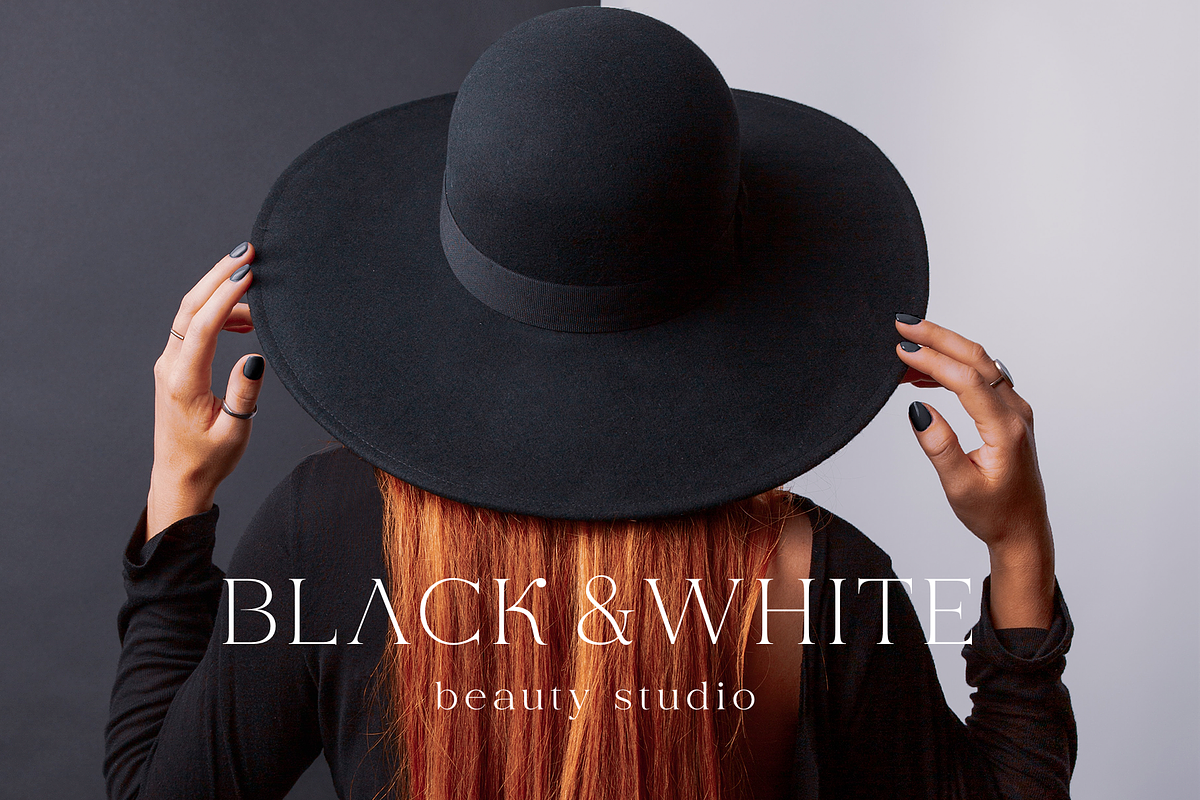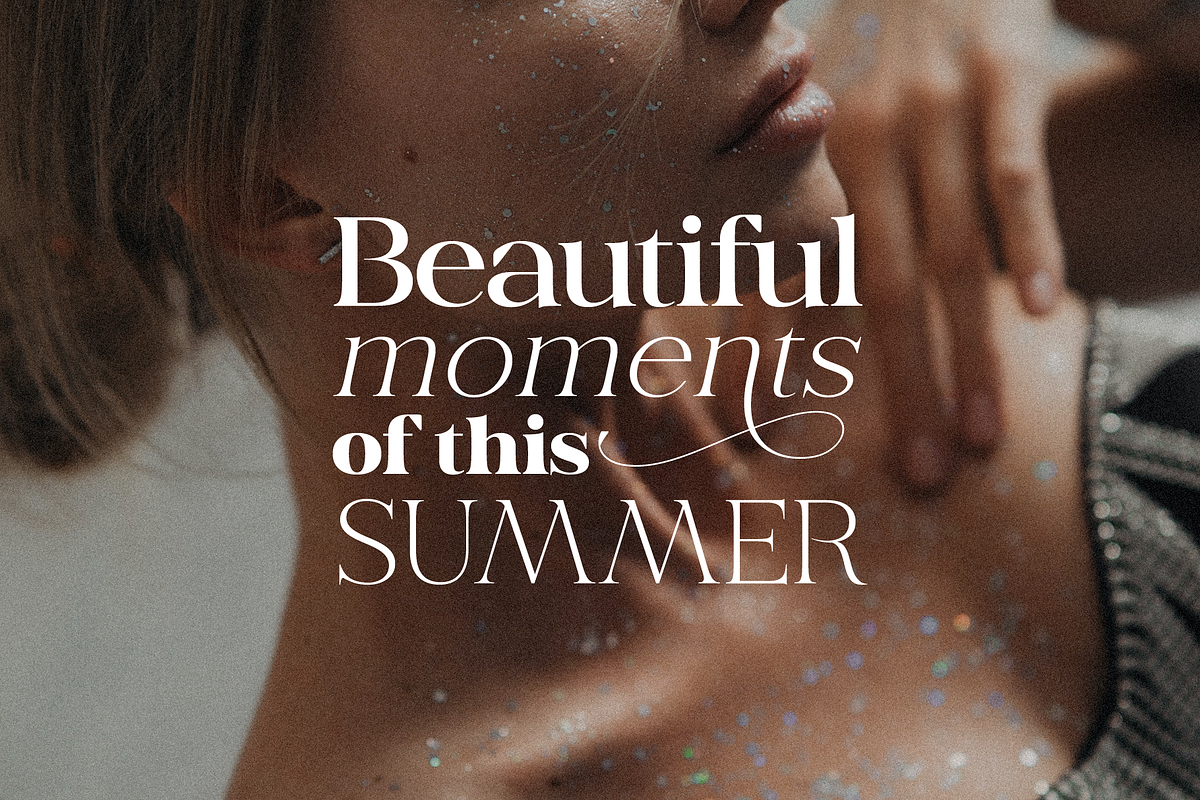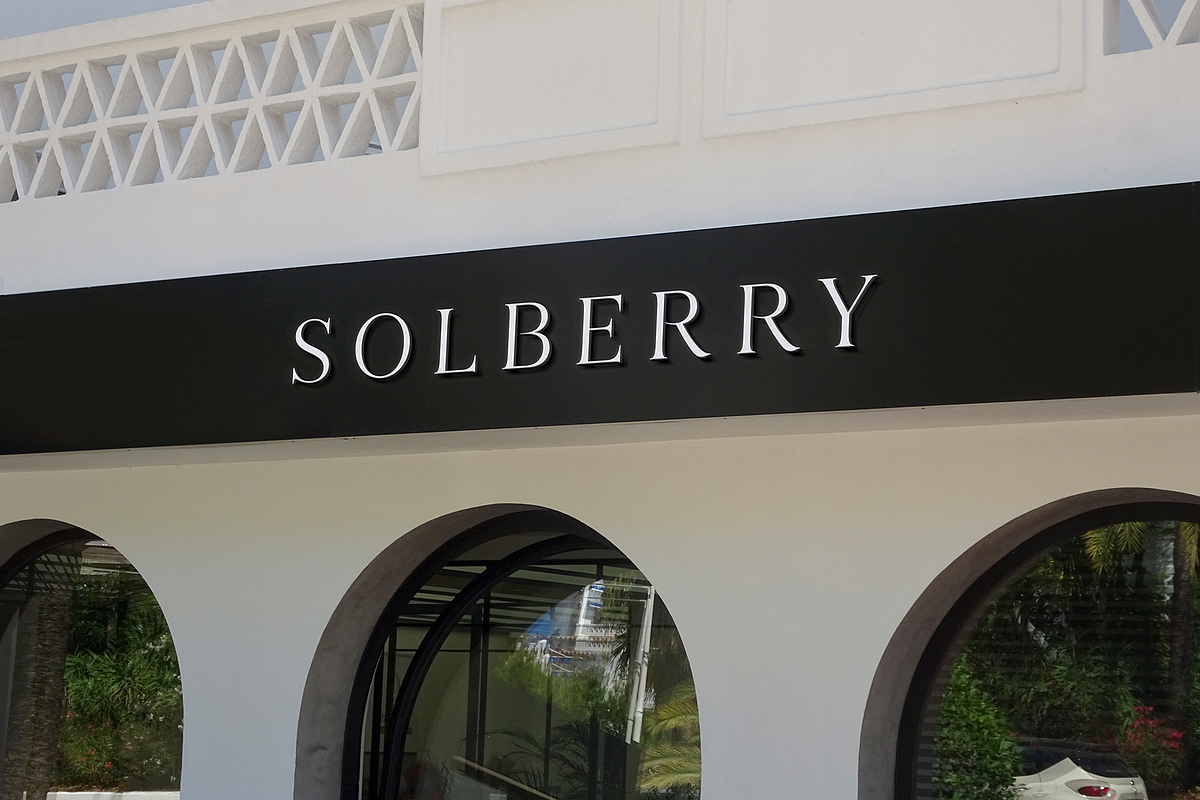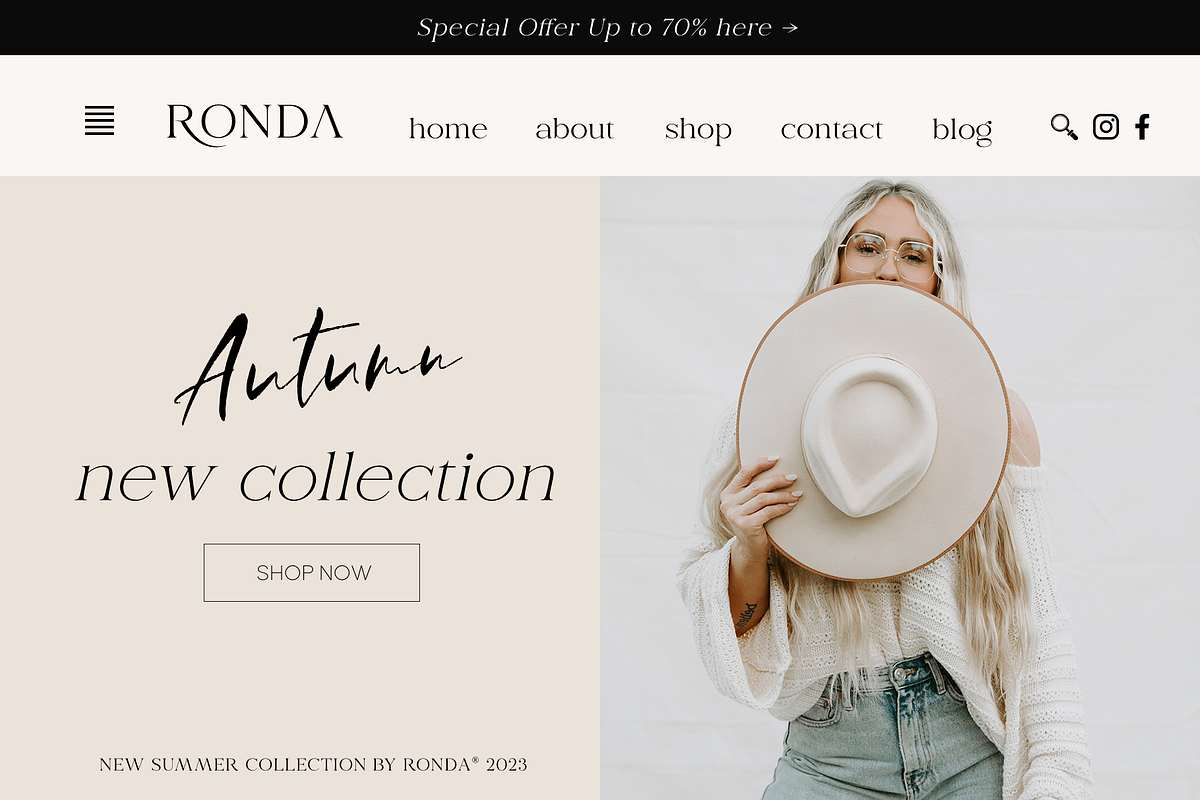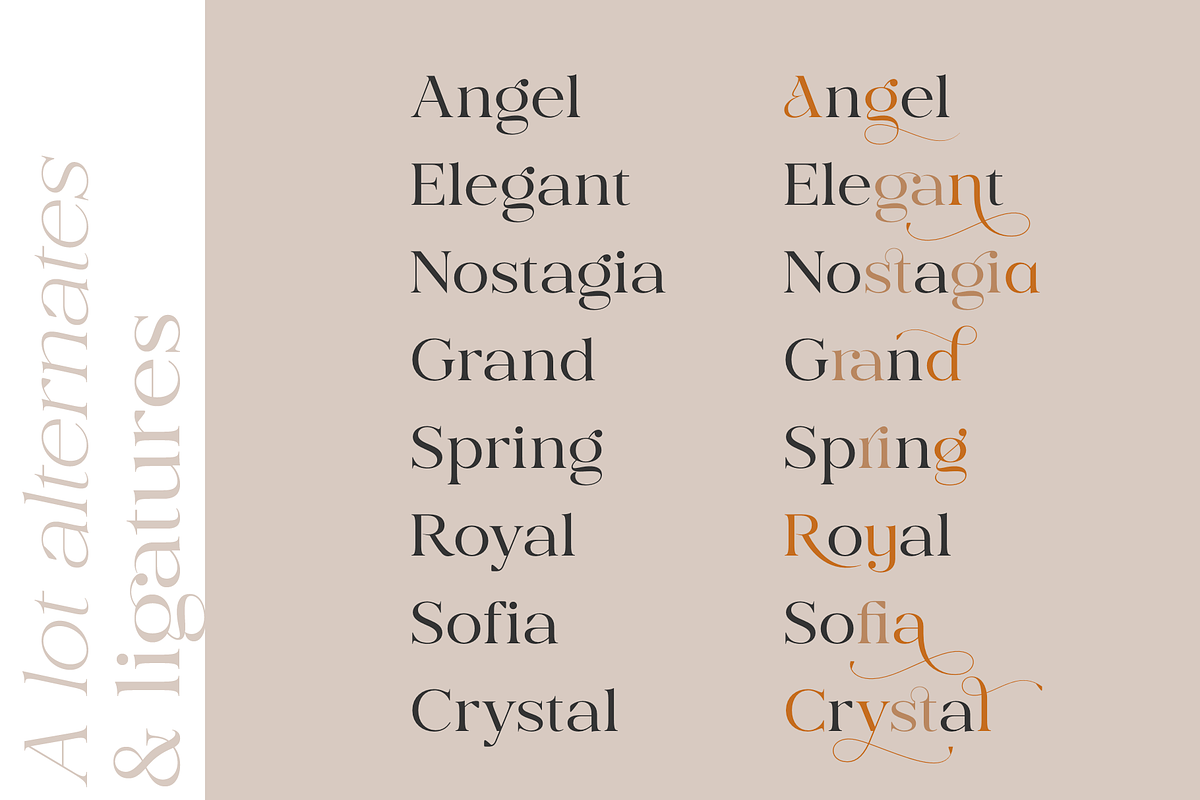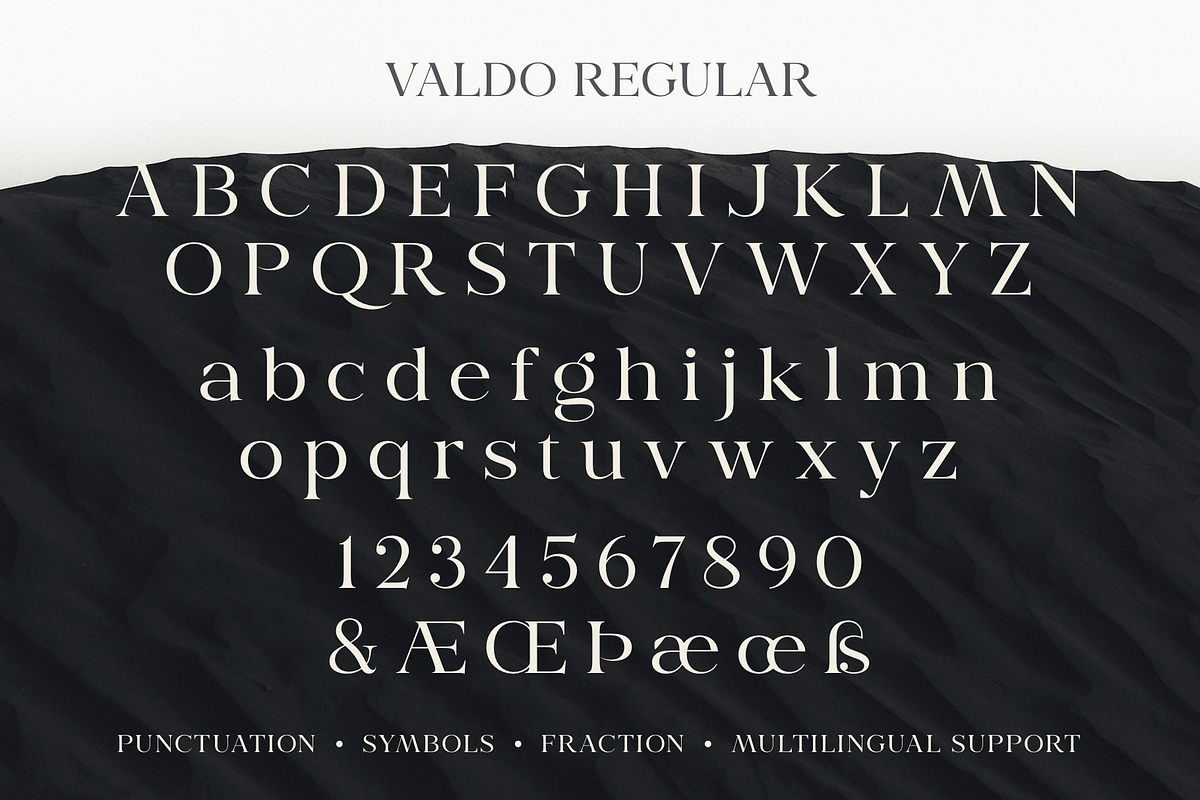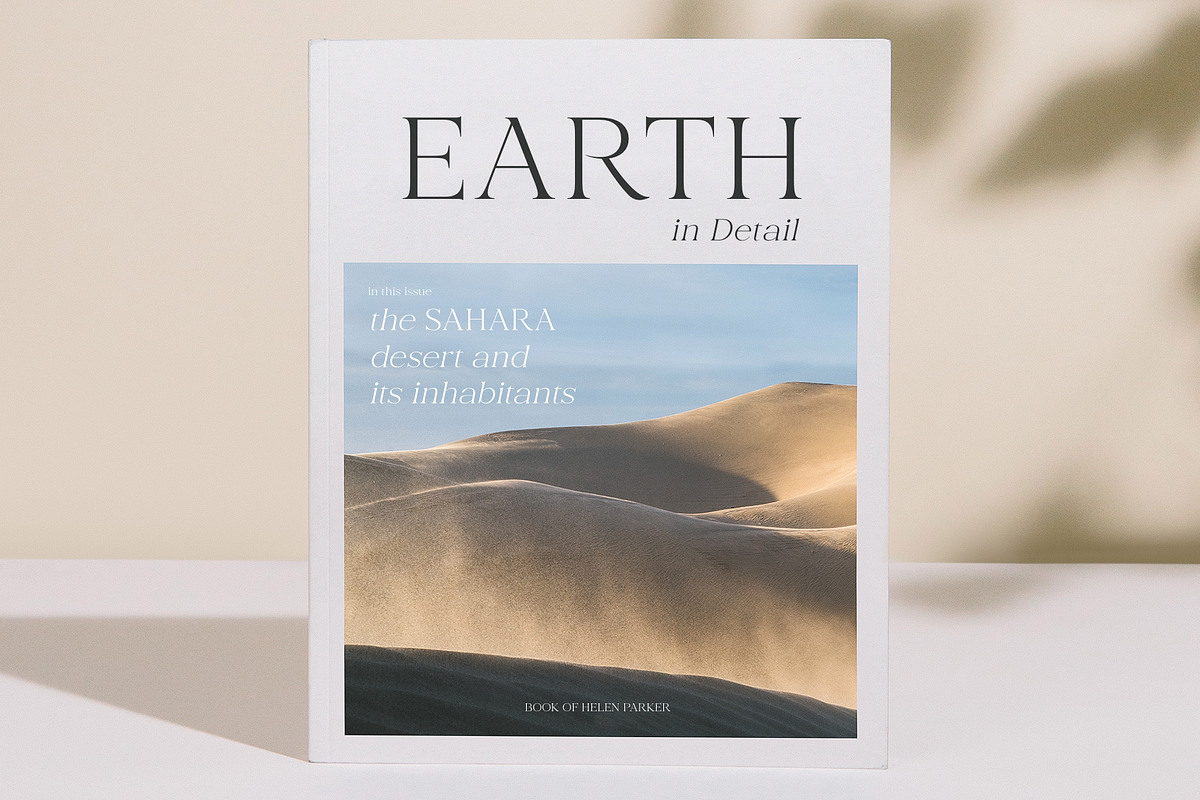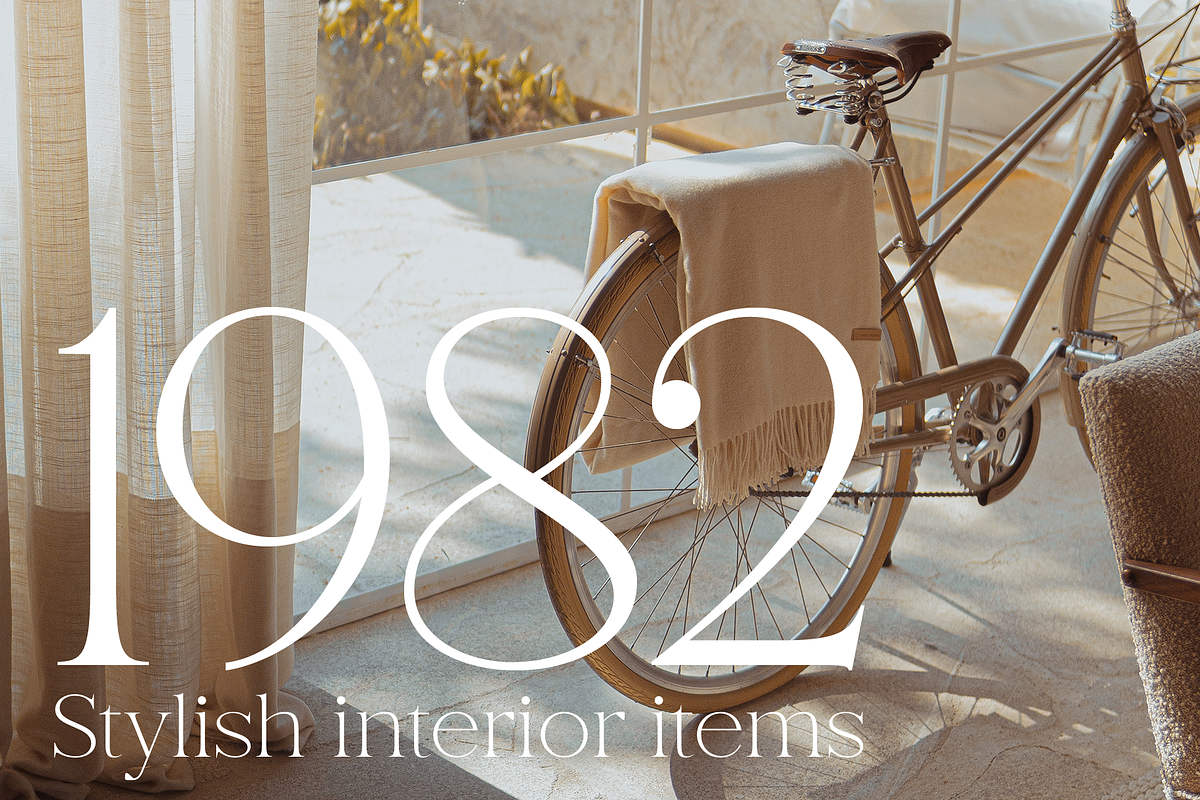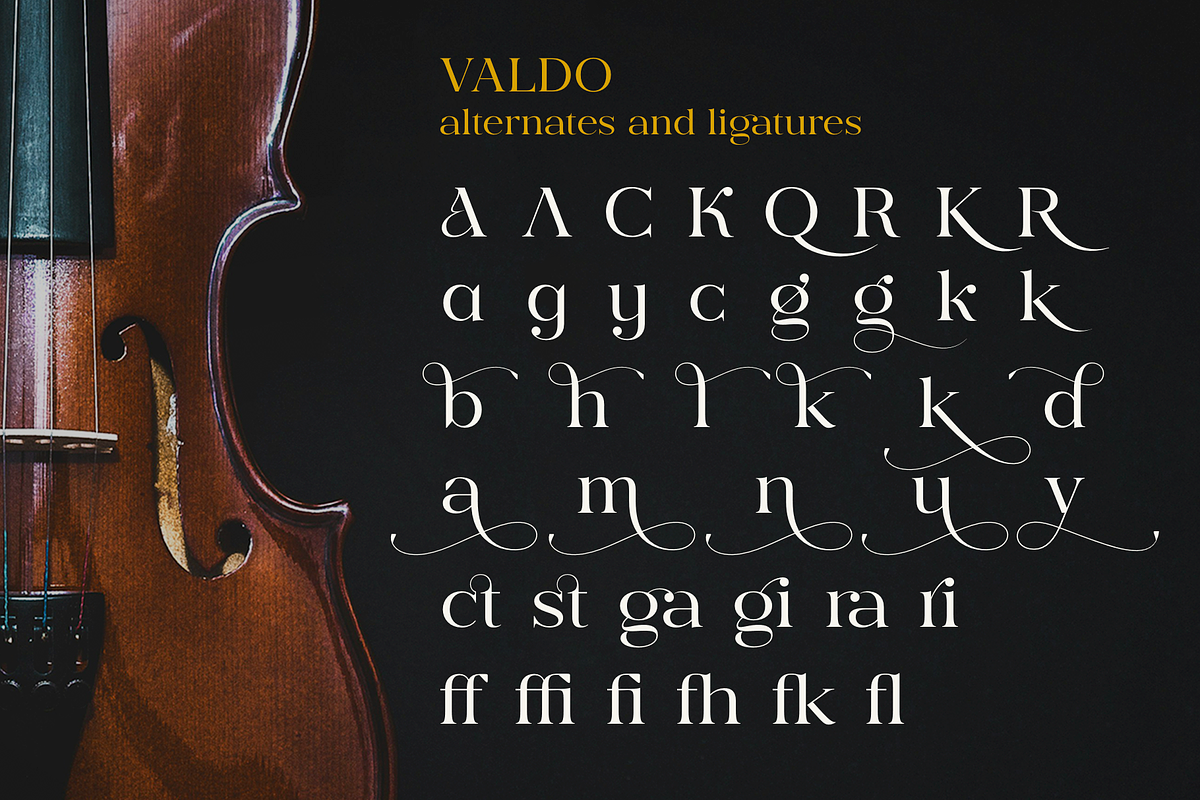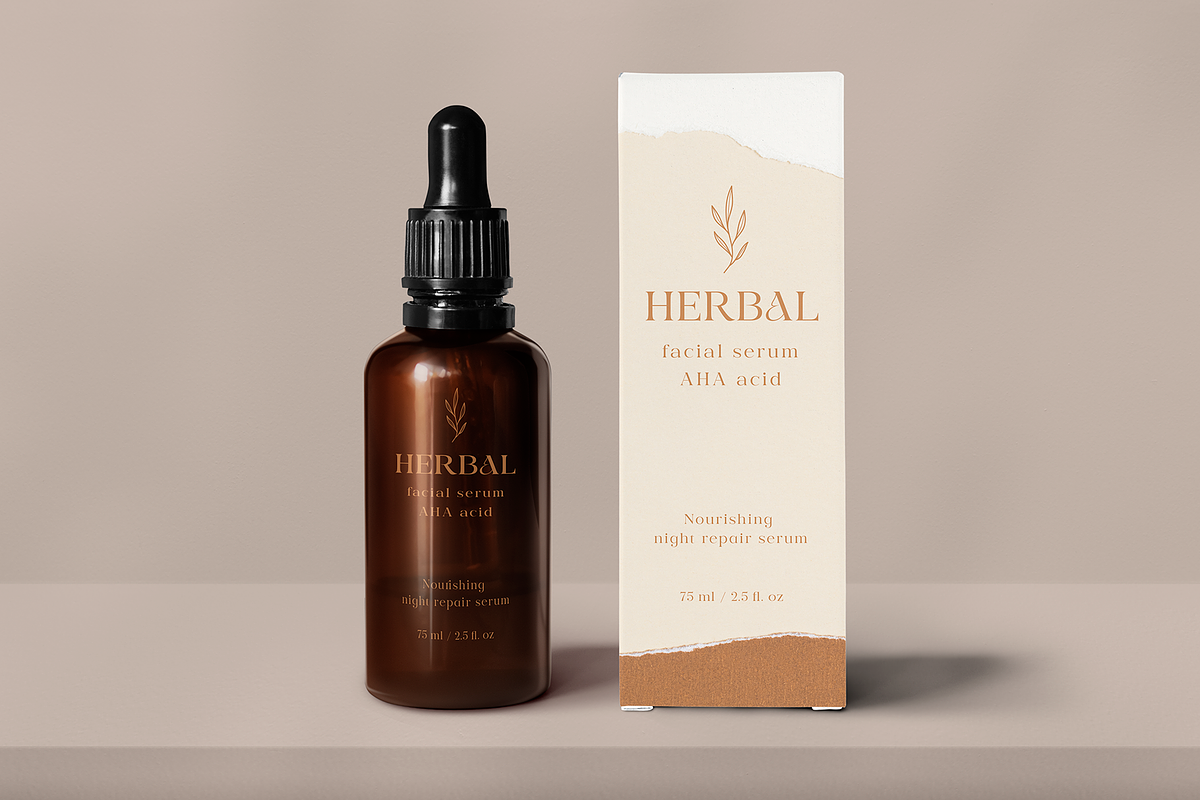
Valdo Font Family
Valdo is an elegant and contrast serif font family, and a great fashionable solution for your project. It includes upright and Italic style, each of them has eight weights from thin to extrabold. This is a multi-purpose and classic font that is perfect for fashion project, it is contrasted, modern and easy to read. With it, you can create logos, banners, use in advertising, packaging, book covers and magazines, headings, descriptions and much more.
Following international symbols support: ÀÁÂÃÄÅĄÇĆÈÉÊËĘÌÍÎÏÐÑŃŁÒÓÔÕÖØÙÚÛÜŚŠŸÝŹŻŽßàáâãäåçèéêëìíîïðñòóôõöøùúûüýÿąćęłńśšźżž
Full alphabet with Uppercase and Lowercase A-z
Alternates for uppercase
Alternates for lowercase
Numbers, fractions
Punctuation and symbols